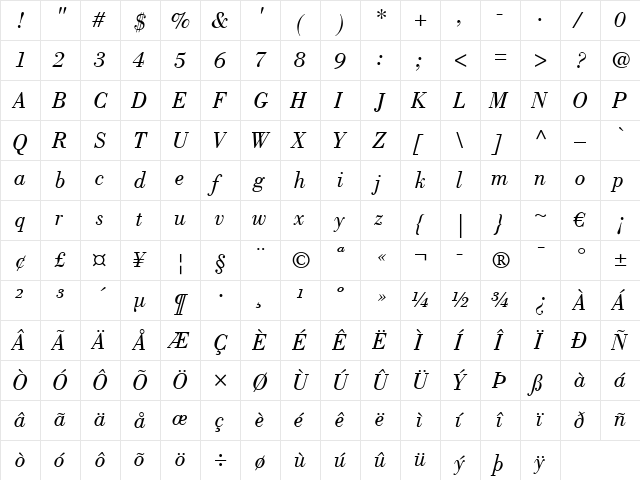
Bodoni LT Book Italic Font Preview
Design Context for Bodoni LT Book Typeface
Bodoni LT Book takes a measured approach to typography — its balanced proportions and neutral character make it a reliable workhorse for both digital and print work. The slanted form adds forward momentum and visual energy. The delicate stroke weight brings airiness and refinement to layouts.
Pro Tip: Try Bodoni LT Book for annotation and caption copy alongside an upright companion — the contrast in angle creates a dynamic but ordered typographic system.